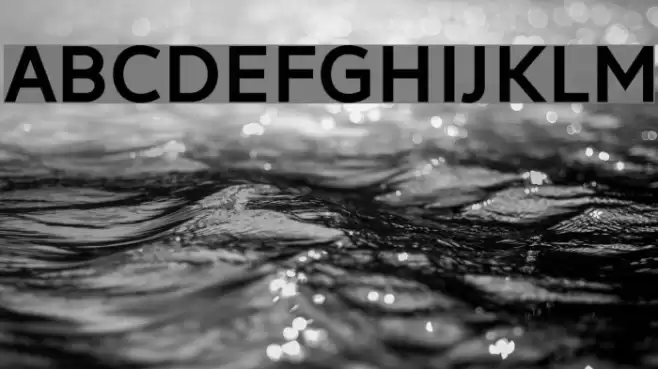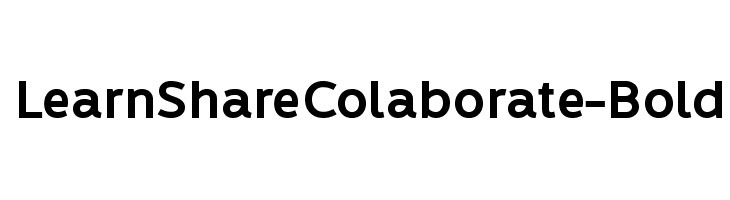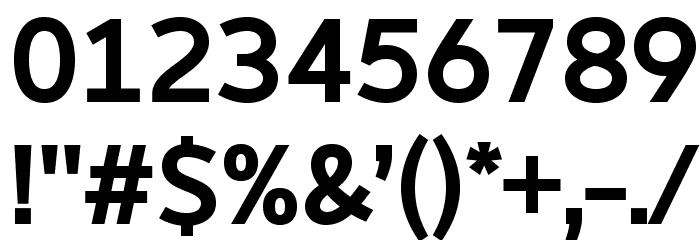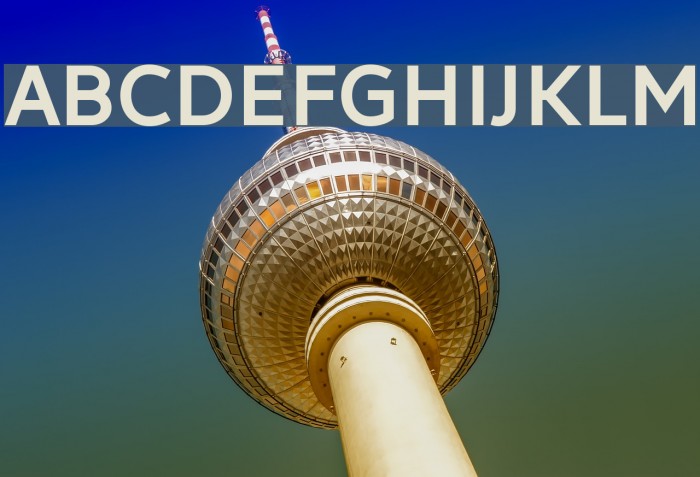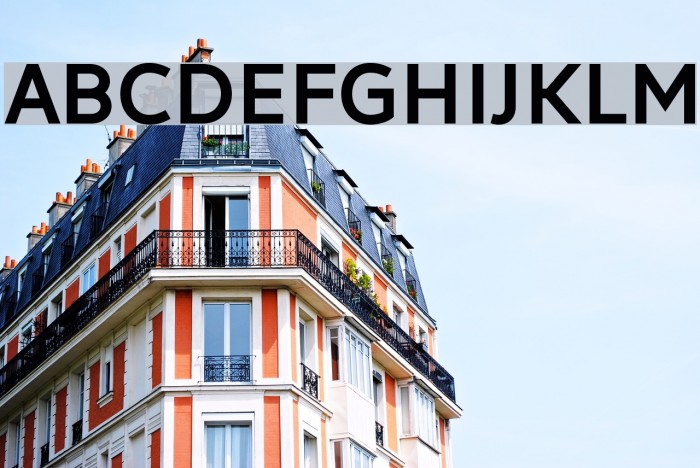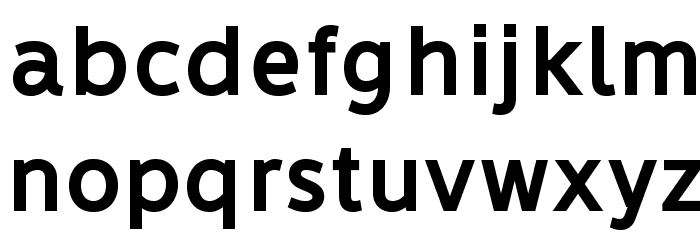
LearnShareColaborate-Bold Font
LearnShareColaborate-Bold Description
This font exhibits a clean and modern sans-serif style, characterized by its bold weight and uniform stroke width. The characters are well-proportioned, with a slightly condensed appearance that maintains readability across various sizes. The uppercase letters are strong and assertive, while the lowercase letters offer a friendly and approachable feel. The numerals are clear and distinct, making them suitable for both text and numerical data. Special characters are well-integrated, ensuring versatility in different contexts. The overall design is sleek and professional, ideal for contemporary applications.
A bold, modern sans-serif font with a clean and professional appearance from Uncategorized fonts.
- Proposed Projects: Ideal for branding, advertising, web design, and editorial projects where a modern and bold statement is needed.
- Use Case: Headlines, Logos, Branding